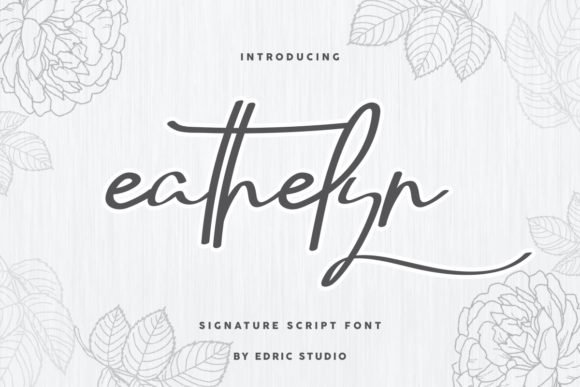
Discovering the Perfect Script: The Eathelyn Font
Have you ever found yourself staring at a blank page, waiting for the perfect font to bring your design to life? I know I have. As creatives, we’re constantly on the hunt for that special something that will elevate our work and make it truly stand out. And then, like a breath of fresh air, you stumble upon it – a font that seems to dance across the page with elegance and sophistication.
Enter the Eathelyn Font, a stunning script font that’s sure to captivate your heart and inspire your designs. With its beautiful, well-balanced characters and gorgeous glyphs, Eathelyn Font is the perfect addition to any designer’s toolkit. Whether you’re working on a wedding invitation, a brand identity, or a simple blog post, Eathelyn Font is sure to bring a touch of class and sophistication to your work.
Eathelyn Font Key Features
- Unique Characteristics: The font features a unique, elegant script style with intricate flourishes and connections between letters, making it ideal for formal and creative applications.
- Language Support: Eathelyn Font supports a wide range of languages, including Latin-based alphabets, Cyrillic, and Greek, making it a versatile choice for multilingual designs and publications.
- Font Family: The font family consists of multiple styles, including Regular, Italic, Bold, and Bold Italic, providing designers with flexibility and options for varying the font’s appearance.
Eathelyn Font Review
I’ve had the chance to work with the Eathelyn font, and I must say it’s a mixed bag. Let’s start with what works well: ✨ the font has a beautiful, elegant feel to it. The script-like flair adds a touch of sophistication, making it perfect for formal invitations, wedding stationery, or any other high-end projects. The font also comes in a range of weights, which gives you plenty of options for customization.
Here are some specific things that work well:
- Beautiful, elegant feel
- Script-like flair adds sophistication
- Range of weights for customization
- Works well for formal invitations and stationery
However, there are some limitations: ⚠️ the font can be a bit difficult to read at smaller sizes, and the weight variations can sometimes feel inconsistent. Additionally, the font may not be the best choice for body text or headlines where legibility is key.
Overall, I’d say the Eathelyn font is a great choice for specific projects where its unique feel is a good fit. However, it may not be the best option for more general use. With a bit of caution and careful selection, it can be a valuable addition to your design toolkit.
Tips for Getting the Most Out of Eathelyn Font
For the best results, use Eathelyn Font in combination with a clean and minimalist design aesthetic.
Experiment with different font sizes and styles to create visual interest and emphasis.
Use Eathelyn Font in headings and titles to add a
Q: What is the recommended font size and line height for Eathelyn Font?
The recommended font size for Eathelyn Font is between 12pt and 24pt, with a line height of 1.2 to 1.5 times the font size. This will ensure optimal readability and visual balance in your designs.
Q: Does Eathelyn Font support Unicode characters?
Yes, Eathelyn Font supports a wide range of Unicode characters, including Latin, Cyrillic, and Greek alphabets, as well as various punctuation and symbol sets. This allows for seamless internationalization and multilingual support in your designs.